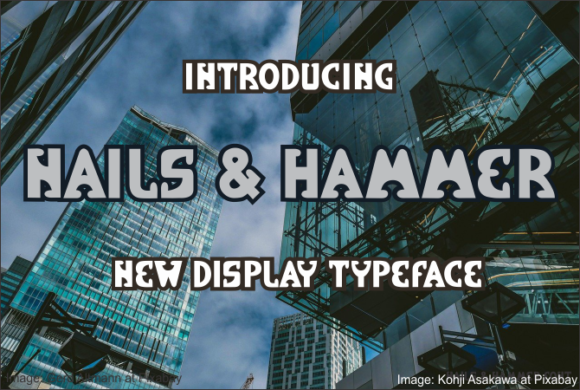
Step into a world of boundless creativity, where words come alive and dance with unparalleled charm. Meet Nails & Hammer, an extraordinary display font that captivates hearts with its quirky personality and endless possibilities. Crafted by the visionary Jaime Rangel Castro, this font is a breath of fresh air, a testament to the power of font artistry.
Nails & Hammer is not just a font; it's an invitation to explore the extraordinary. Its bold and playful strokes ignite imagination, while its carefully crafted details infuse designs with a touch of captivating whimsy. This font is a chameleon, effortlessly blending into a multitude of contexts, from enchanting love letters and heartfelt invitations to vibrant posters and playful social media posts. Its versatility is a testament to its creator's boundless creativity, ensuring it finds a home in any design endeavor.
Picture this: your designs blossoming into masterpieces, as Nails & Hammer weaves its magic, transforming ordinary words into captivating expressions of art. Its unique character shines through, adding a spark of individuality to every project. Whether you're crafting a passionate love letter, designing an unforgettable invitation, or creating engaging social media content, Nails & Hammer elevates your designs, making them stand out from the mundane.
With Nails & Hammer as your creative companion, you'll embark on a journey of limitless expression. It's a font that empowers you to speak your heart, to share your stories, and to connect with others in a way that's both meaningful and memorable. Dare to embrace its charm, let your creativity soar, and experience the transformative power of Nails & Hammer.